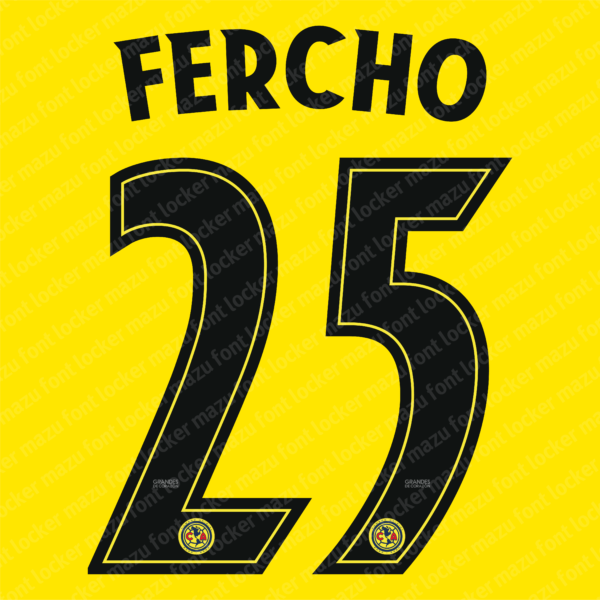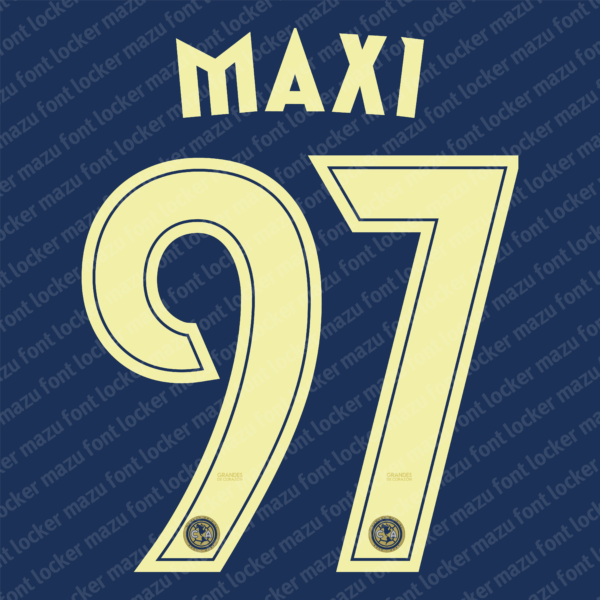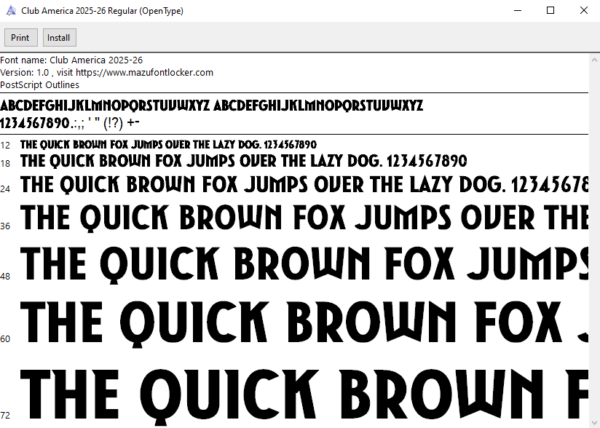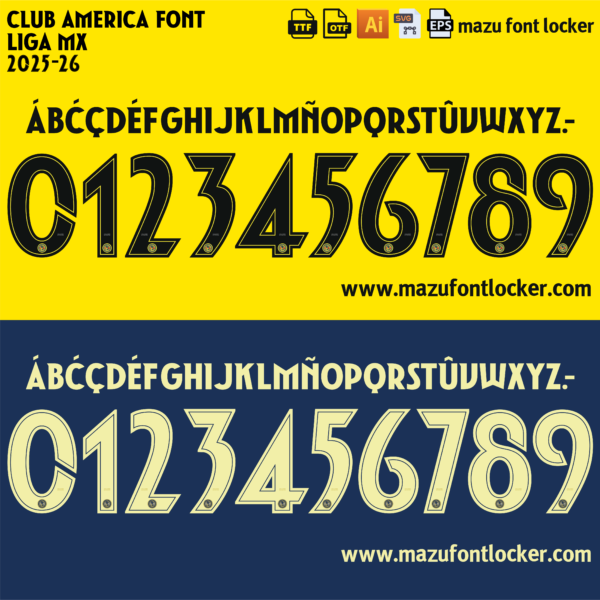
Club America 2025-26 Font Vector – Powerful Mexican Eagles
Club America 2025-26 Font is a high-quality football jersey font vector designed to replicate the official lettering and numbering style used during the Liga MX 2025-2026 season. This Club America 2025-26 font is perfect for designers, football fans, and creators who want accurate and professional jersey customisation.
Inspired by the official kit of Club America, this Club America 2025-26 font delivers a clean and authentic match-day appearance. Every letter and number has been carefully recreated to match the real jersey design, ensuring your projects look realistic and professional.
Club America 2025-26 Font Vector – Authentic Jersey Lettering
Club America 2025-26 font is a high-quality football jersey font vector created to replicate the official lettering and numbering style used during the iconic 2025-26 Season. Perfect for designers, football fans, and jersey customisation projects, this font set delivers an authentic and professional match-day appearance.
Inspired by the original Italy national team kit, every letter and number has been carefully recreated to ensure accurate retro styling for both digital and print projects.
• Authentic 2025-26 Club America jersey lettering style
The authentic lettering style helps recreate the classic look of the Club America 2025-26 kit with professional accuracy.
Unlike generic jersey fonts, this set is designed with a strong focus on authenticity and accuracy. Every detail is based on the original match lettering style used during the 2025-26 season, helping designers and collectors create realistic football shirt designs.
This Club America 2025-26 font vector set is designed for authentic football jersey customization and works perfectly for retro football projects, collector designs, and professional sportswear artwork.